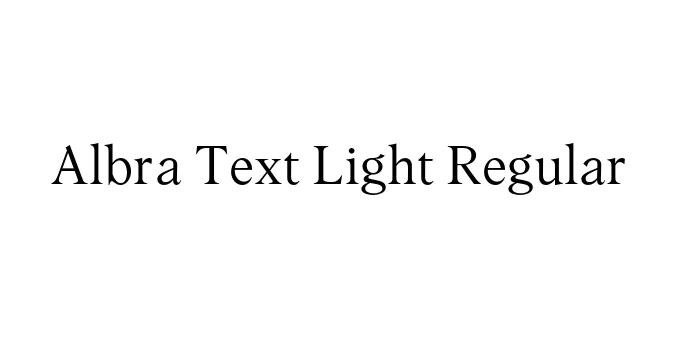
Albra Text Light Regular
Designed by Valerio Dell’Edera
Albra Text Light Regular is a sophisticated serif typeface designed by Valerio Dell’Edera of the BumbumType foundry. It represents a bridge between high-fashion elegance and utilitarian legibility, specifically engineered to perform beautifully in extended reading environments. Its design features subtle, soft terminals and a balanced x-height that ensures clarity even at smaller point sizes, making it an ideal choice for editorial layouts and premium branding projects.
As part of the expansive Albra superfamily, the Text variant focuses on refined proportions and reduced contrast compared to its display counterparts. This allows the typeface to maintain its character without overwhelming the reader. The 'Light' weight offers a delicate, airy feel that is perfect for sophisticated minimalist designs, high-end lifestyle magazines, and digital interfaces that require a touch of classic warmth combined with modern precision.
Albra Text Light Regular Best Uses
Perfect for long-form articles in high-end magazines and literary journals.
Ideal for luxury fashion or lifestyle brand identities seeking a classic feel.
Excellent for clean, readable body copy on sophisticated digital platforms.
Well-suited for books, brochures, and elegant stationery applications.